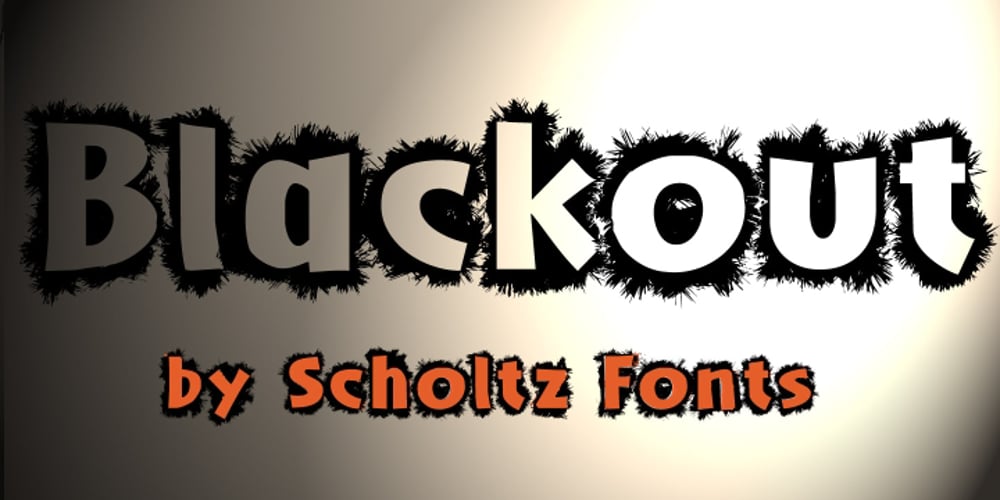
Blackout SCF Font Family was designed by Anton Scholtz and published by Scholtz Fonts. Blackout SCF contains 1 styles and family package options. Blackout SCF is a loose and informal grungy font with a modern, electric zappy quality. The font is particularly useable for the promotion of products aimed at young and trendy consumers. It can be used for the design of: CD and DVD covers; clothing advertising and swing tags; magazines and advertising; and cosmetic packaging. It has been carefully letterspaced and kerned. It contains a full character set: all upper and lower case characters, punctuation, numerals and accented characters are present.